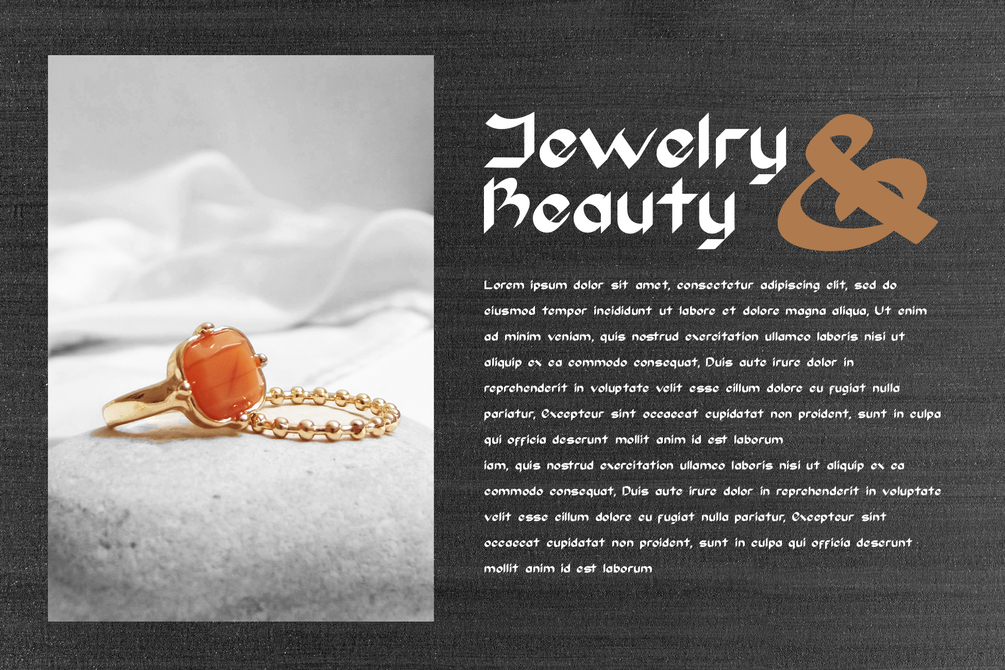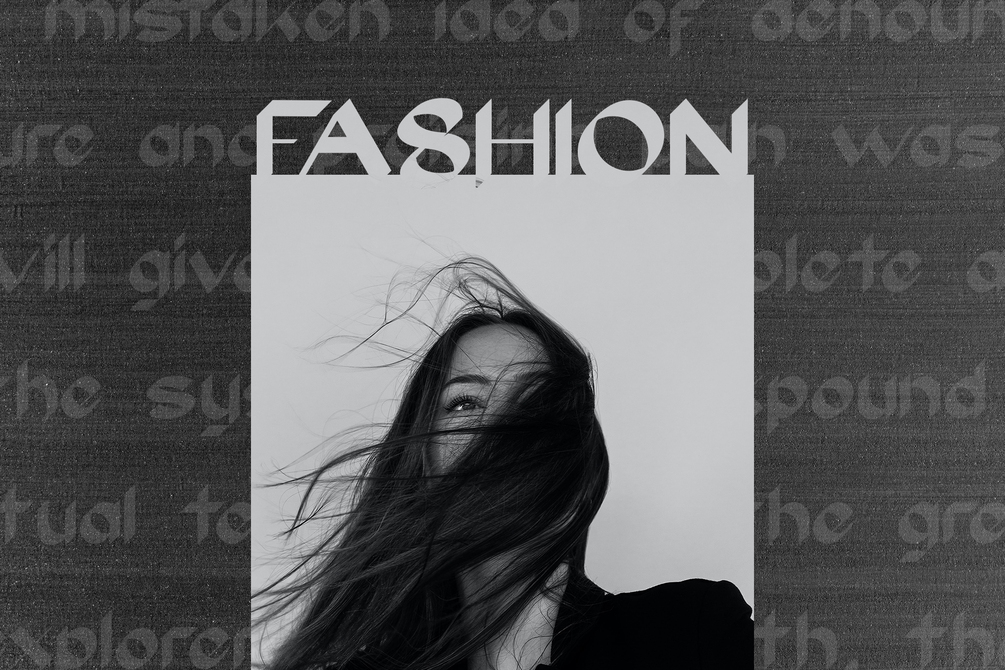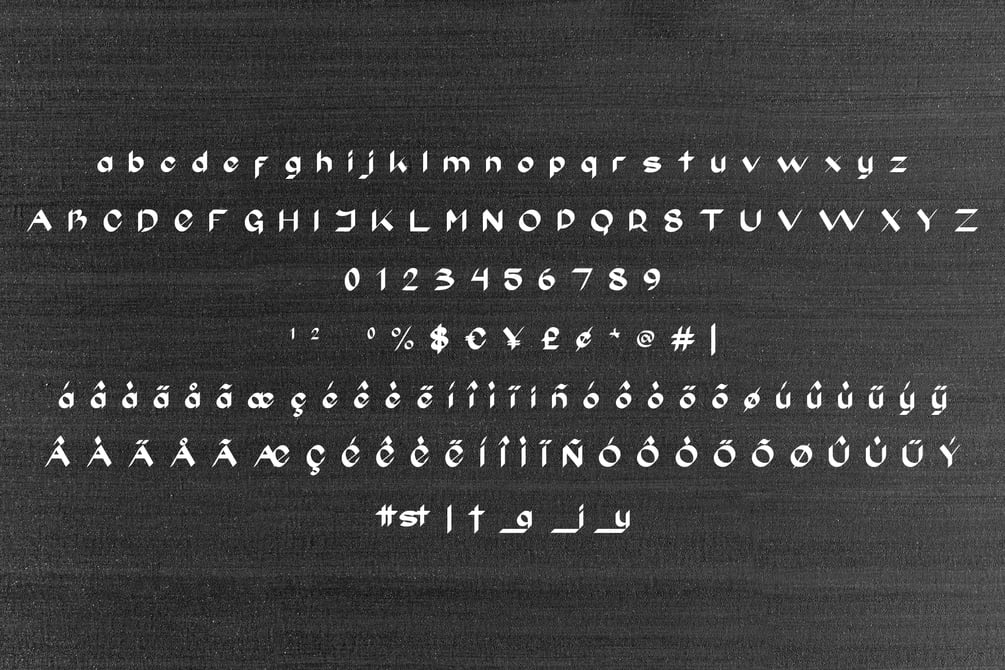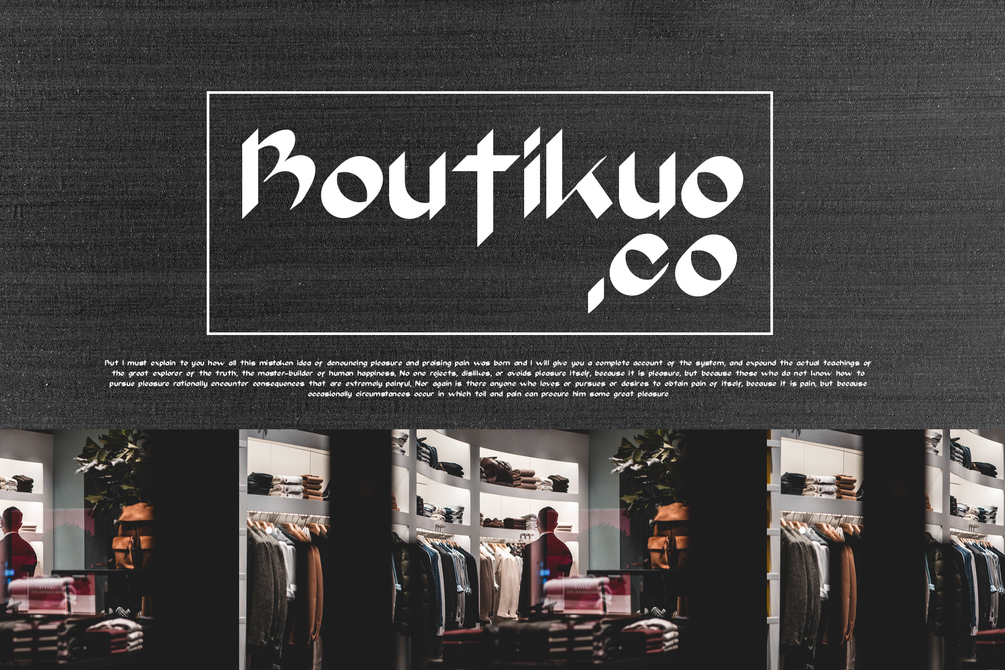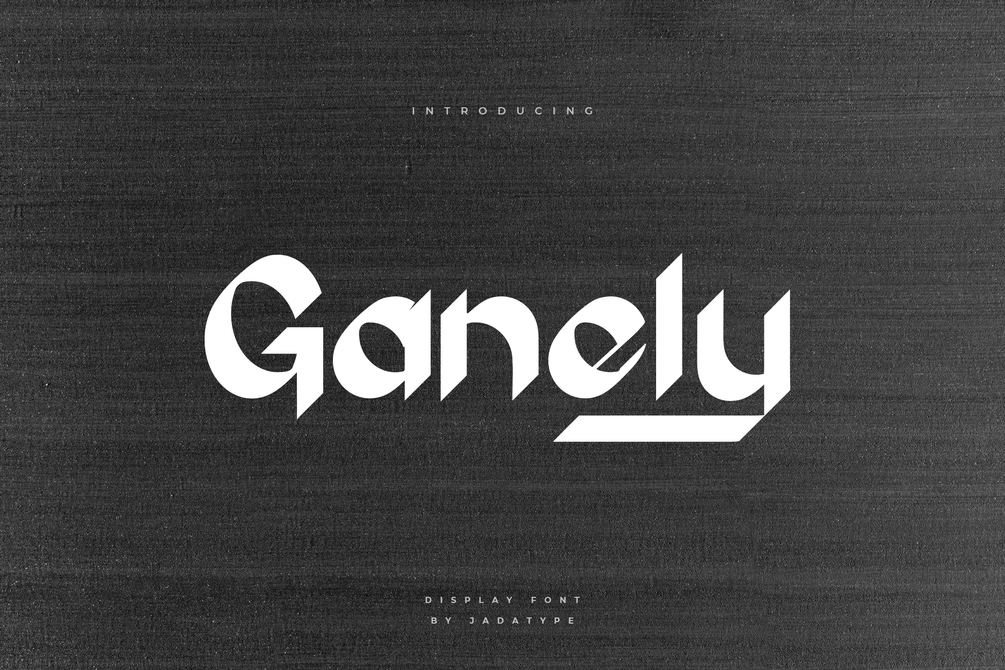
Ganely Font
Ganely is a font with an elegant display energy. suitable for social media, branding, products, logotype, event, campaign, and so on. contains standard English letters, numbers, punctuation, and several accents that support multilingualism.